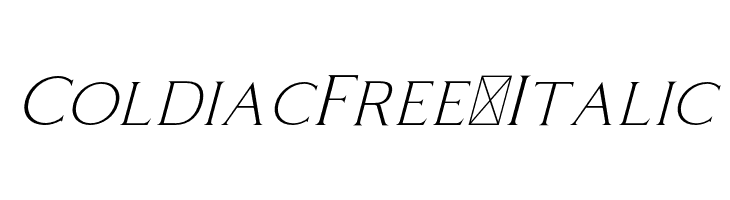
• ColdiacFree-Italic caratteri
An elegant italic font with smooth, flowing lines and a classic appearance.
• ColdiacFree-Regular caratteri
A refined serif font with elegant, elongated strokes and sharp serifs.
• COLDPLAY Medium caratteri
A bold, geometric font with strong, block-like characters.
• ColdSpring caratteri
A bold, textured font with diagonal line patterns and high contrast.
• Coldwell Bridges caratteri
An elegant script font with fluid, cursive strokes and interconnected letters.
• ColeCarreira1 caratteri
A modern dotted font with geometric uppercase and cursive lowercase letters.
• Colendra caratteri
A playful, handwritten-style font with consistent strokes and a casual vibe.
• Colendra Alternate caratteri
A playful, hand-drawn font with tall, narrow letters and a whimsical style.
• Colendra Bold caratteri
A bold, playful handwritten font with thick strokes and rounded edges.
• ColesFont caratteri